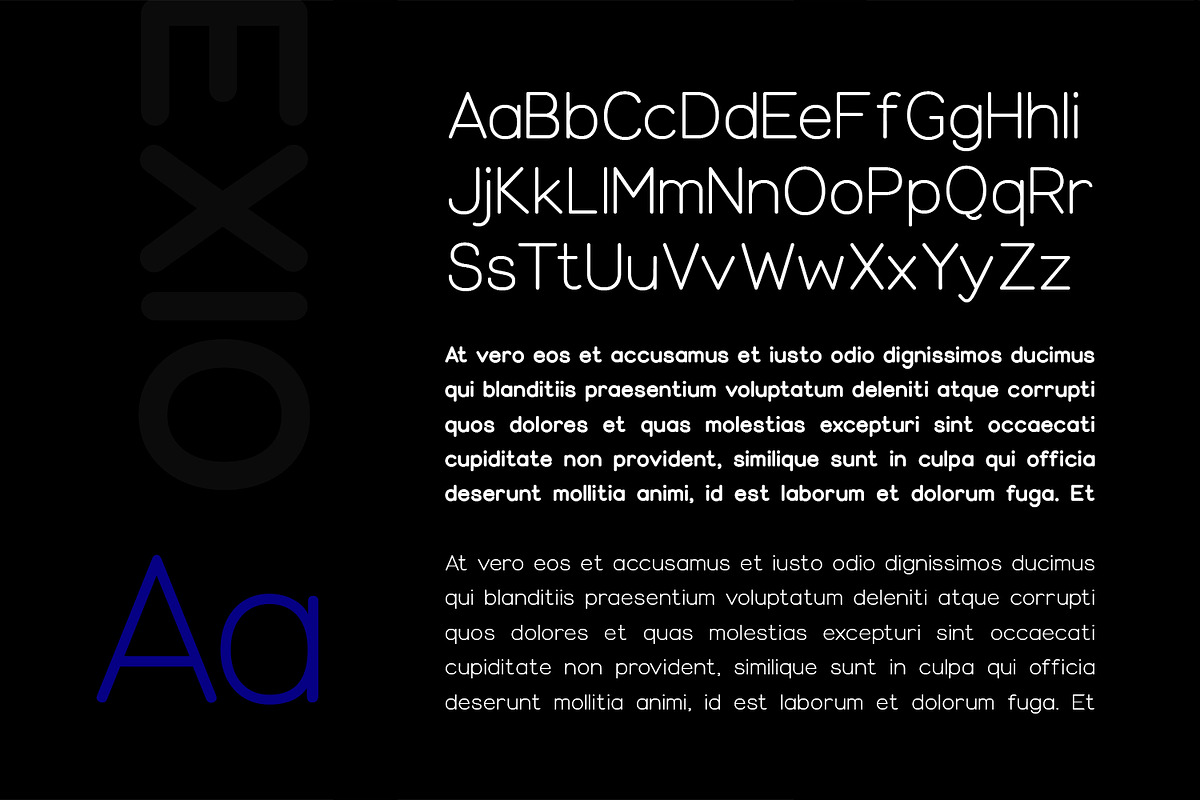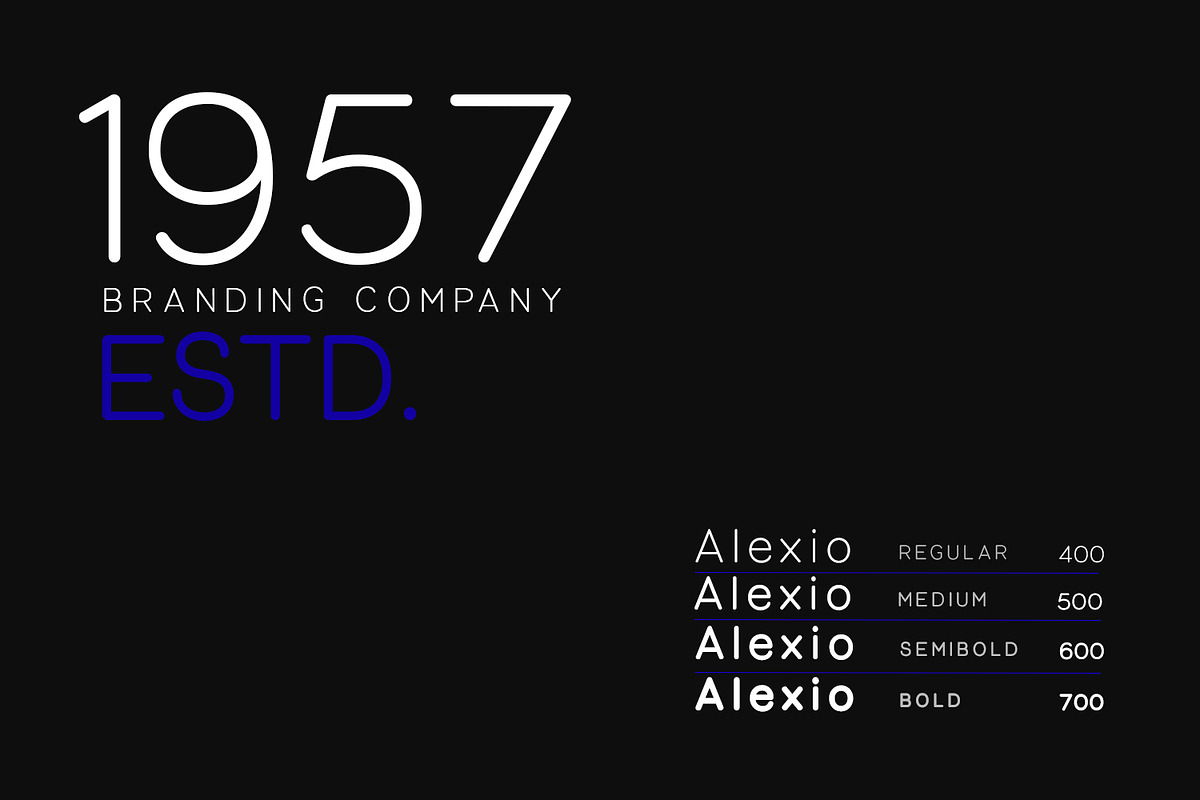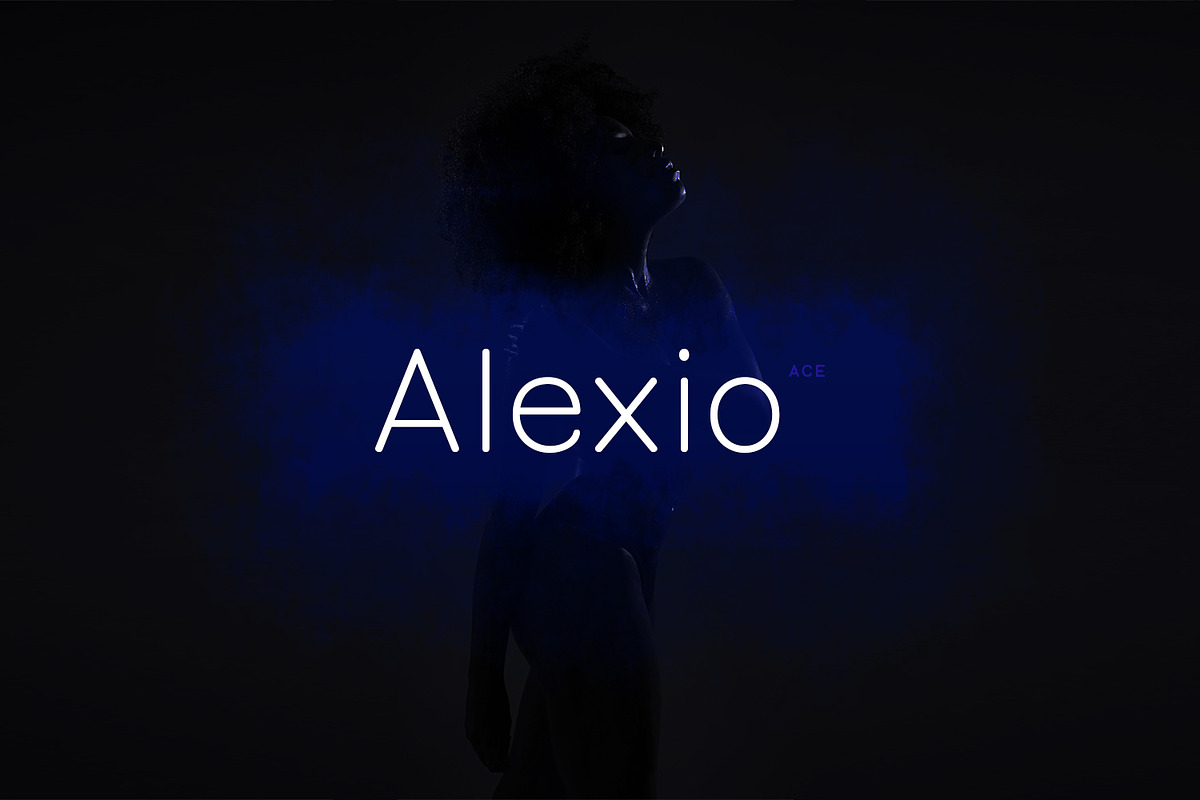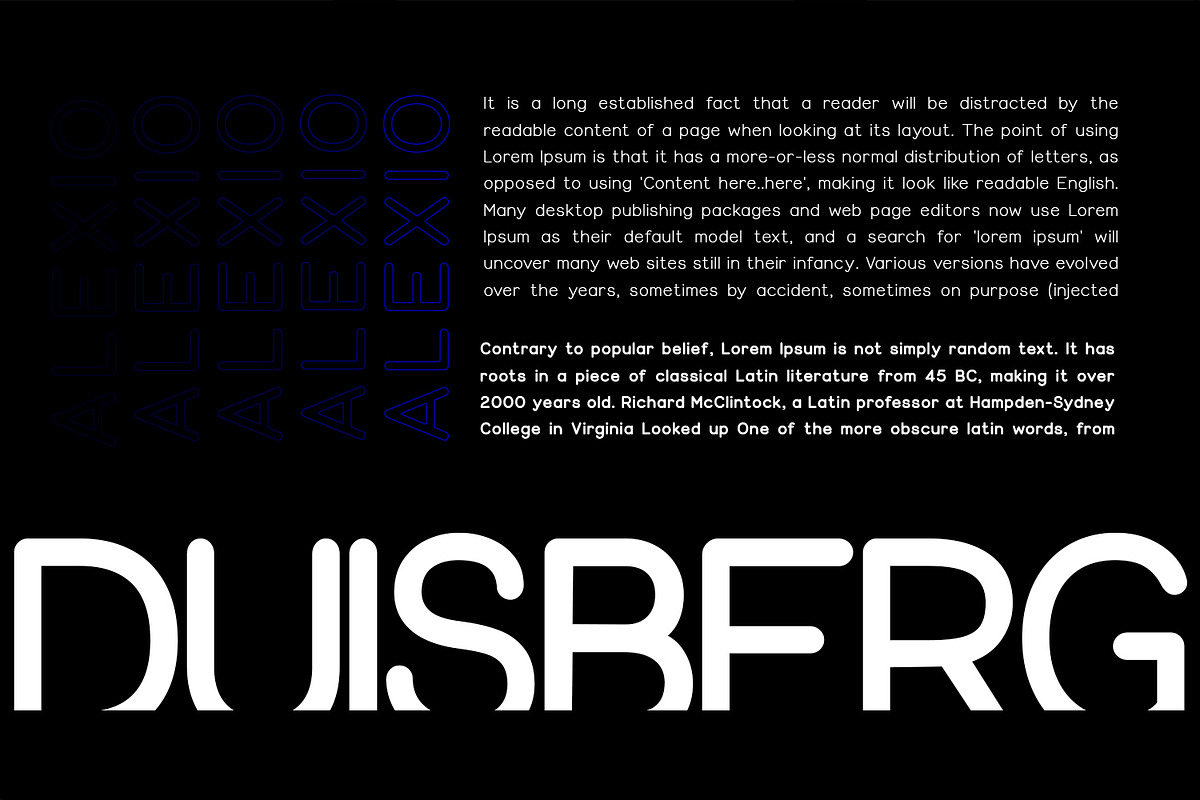
Alexio Ace Display Typeface
Alexio Ace Display is a Unique Modern Elegant Typeface from Alexio Font Family with Web-fonts. It's a very versatile font that works great in large and small sizes. Alexio Font would perfect for branding, logos, headlines, Captions. or simply as a stylish text overlay to any background image. Strong capitals and a smooth, open lowercase are effective in a variety of applications. It's shown a clean, minimalist, warmth, quirky, yet still purposed to be versatile and easy to read.